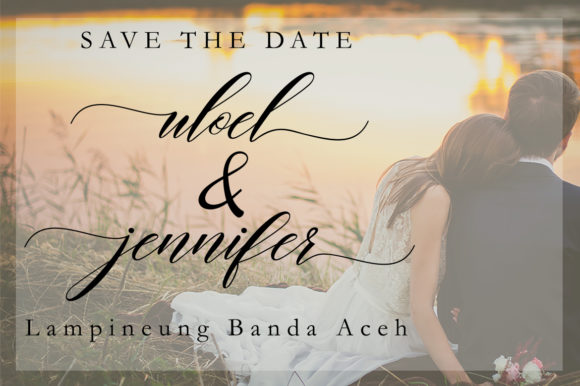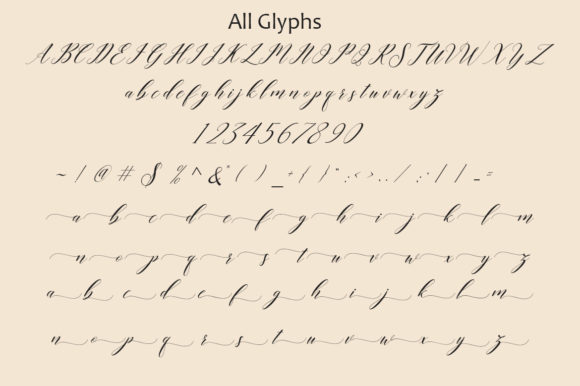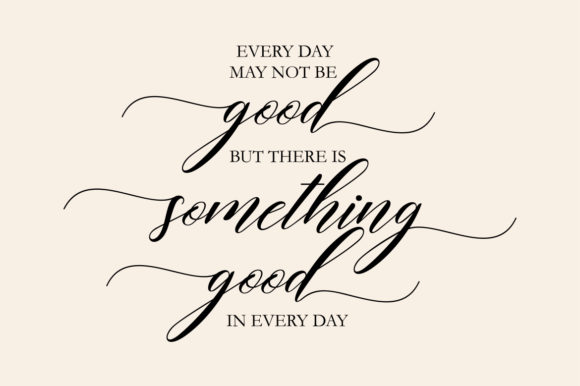
Introduction to Last Night Script Font
As designers, we’ve all been there – stuck in the middle of a project, searching for the perfect font to bring our creative vision to life. The words “free download” and “high quality” are often the holy grail of design resources. And when you stumble upon a stunning script font, it’s like the stars aligning in your favor. This is where the Last Night Script Font comes in, a beautiful and elegant handwritten font that’s sure to make your creative project shine.
With its delicate characters and playful charm, the Last Night Script Font is the perfect addition to any design project. Whether you’re working on a logo, a poster, or a digital design, this font is sure to bring a touch of sophistication and elegance to your work. And the best part? It’s available for free download, making it a valuable resource for designers of all levels.
Key Features of Last Night Script Font
- High-quality, cursive script font ideal for creative projects, such as invitations, posters, and advertisements.
- Unique characteristics include a flowing, handwritten feel and elegant flourishes, adding a touch of sophistication to any design project.
- Perfect for designers looking for a high-quality, free font to enhance their creative projects and add a personal touch.
Honest Review: Last Night Script Font
I recently had the chance to work with the Last Night Script Font, and I must say it’s a great addition to any design resource. This free download is perfect for those looking to add a touch of elegance to their creative project.
- High-quality design that’s perfect for invitations, quotes, and other typography-heavy projects
- Very easy to use and customize, even for beginners
- Only comes in a few font weights, which may limit its versatility in certain projects
- Some characters may not display properly in certain software or operating systems
- Not ideal for large blocks of text, as it can become overwhelming
Overall, I’d recommend the Last Night Script Font for personal projects or those on a tight budget. With a little creativity and customization, it can add a beautiful touch to your design. Just be aware of its limitations and use it wisely. ✨
Tips for Getting the Most Out of Last Night Script Font
For the best results, use the Last Night Script Font on a transparent background to make it stand out. You can also experiment with different font sizes and styles to create a unique and creative design.
The Last Night Script Font is ideal for creative projects such as:
- Birth announcements
- Party invitations
Alternatives to Last Night Script Font
Pacifico is a beautiful script font perfect for design projects that require a high level of sophistication and elegance. It is ideal for use in creative projects such as wedding invitations, branding, and marketing materials. Pacifico offers a high-quality alternative to Last Night Script Font with a more refined and modern feel.
When to use: Wedding invitations, branding, marketing materials.
Comparison: Pacifico is more modern and refined compared to Last Night Script Font.
Great Vibes is a fun and playful script font ideal for use in design projects that require a lot of personality and flair. It is perfect for use in creative projects such as social media graphics, posters, and advertising materials. Great Vibes offers a high-quality alternative to Last Night Script Font with a more energetic and lively feel.
When to use: Social media graphics, posters, advertising materials.